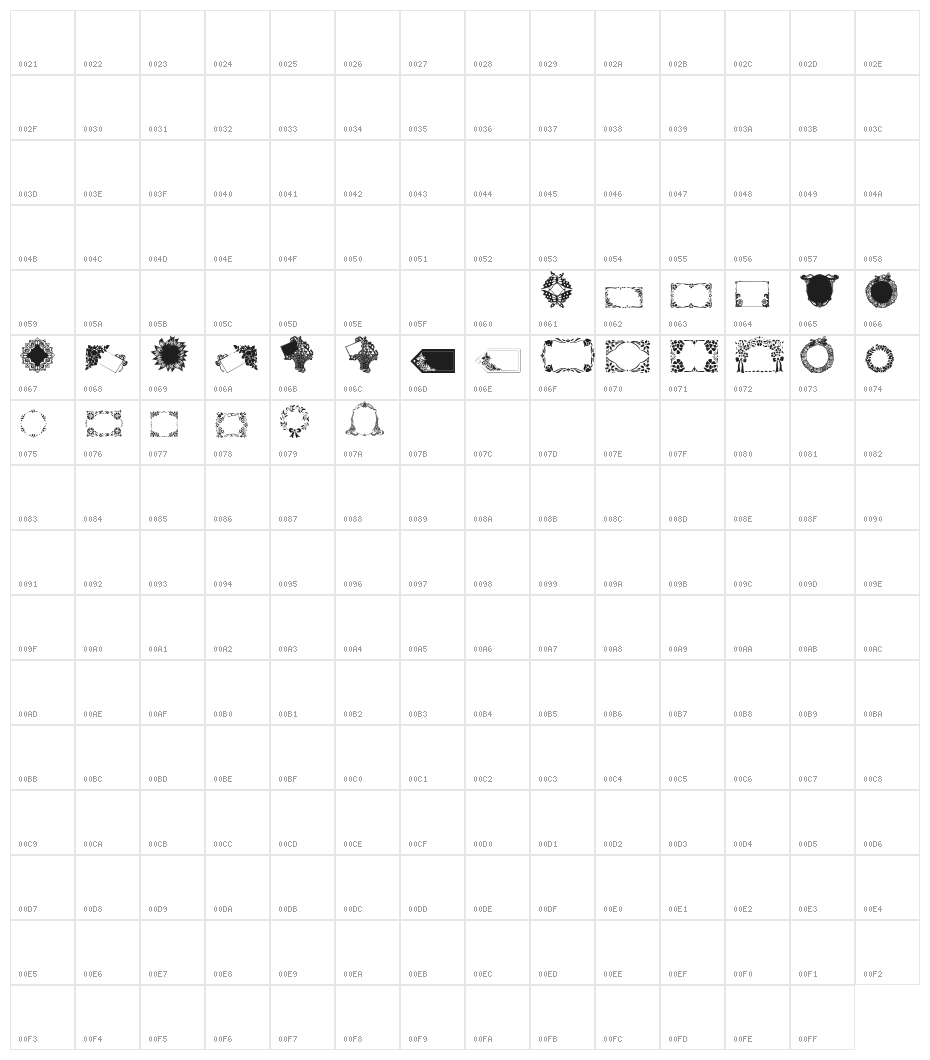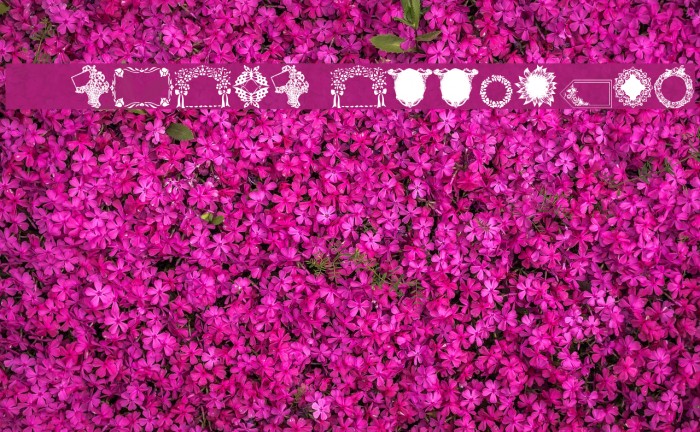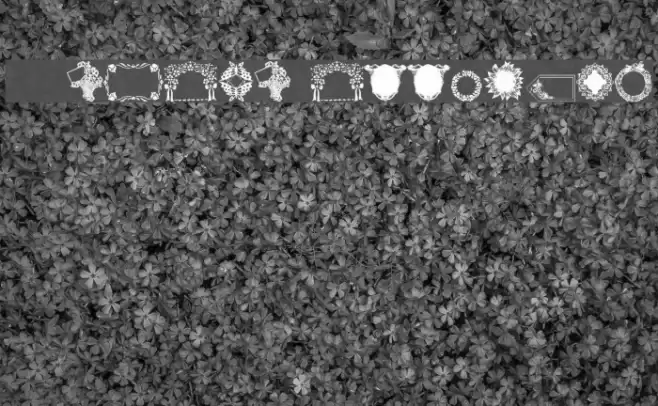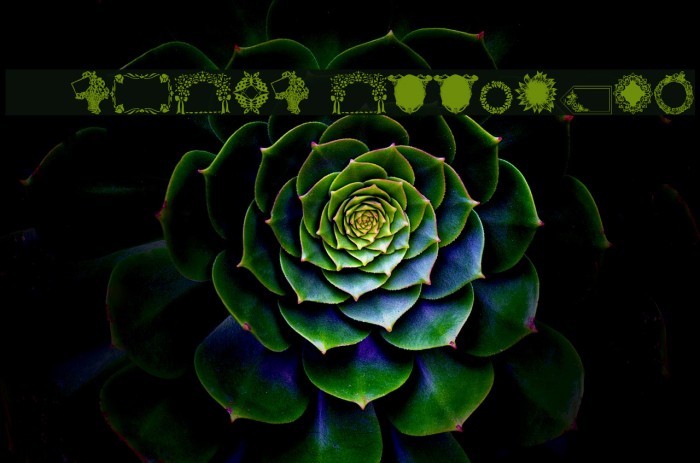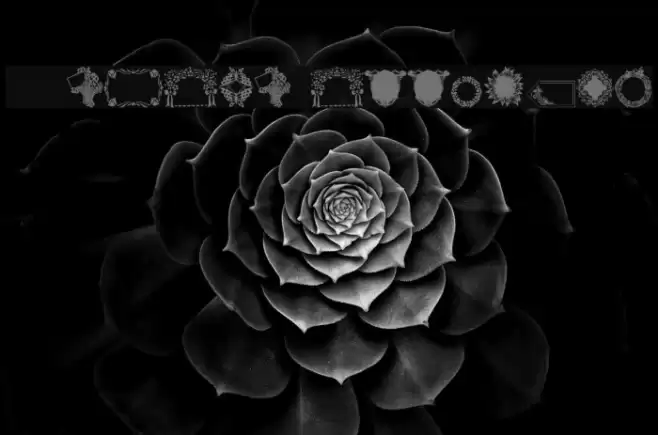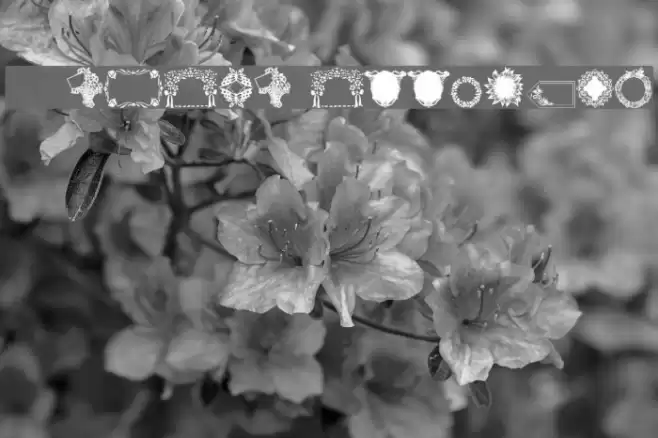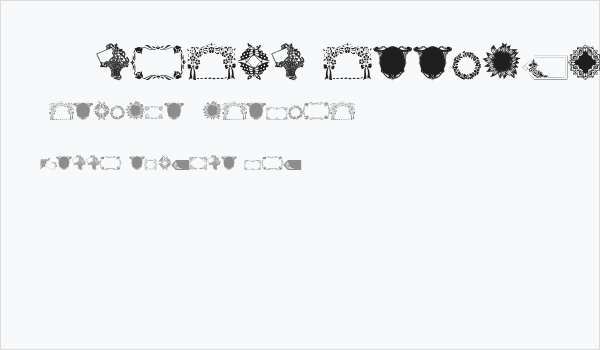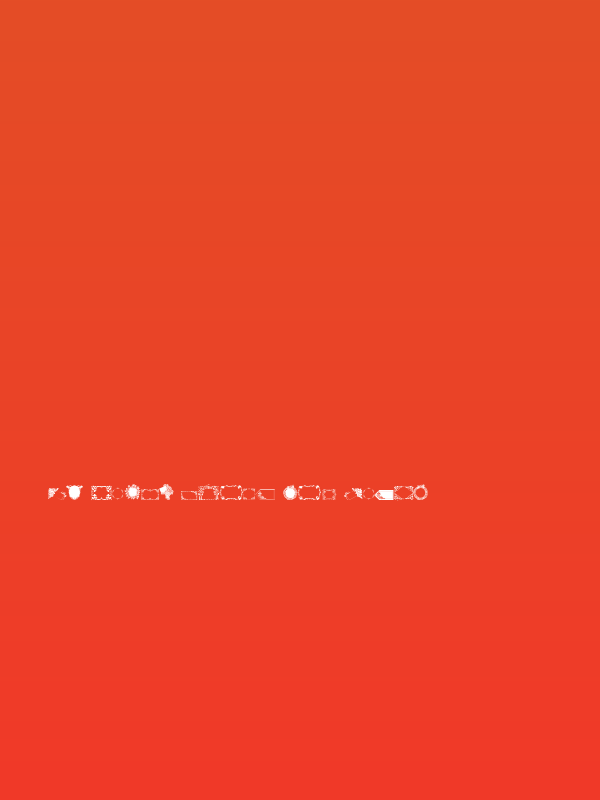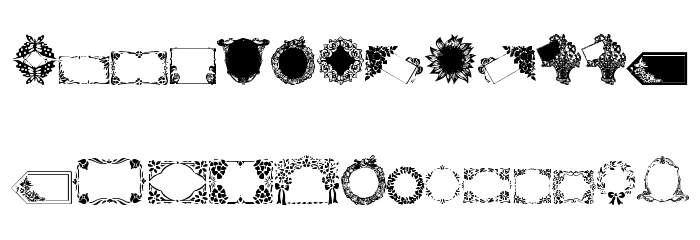
WWFloralGreetings Font
WWFloralGreetings Description
A decorative font composed of intricate floral and ornamental frame designs, each glyph representing a unique border or label with detailed botanical elements.
| Overall Style | Decorative, Vintage |
| Use Case | Logos, Decorative elements, Invitations, Greeting cards |
| Proposed Projects | Greeting cards, invitations, scrapbooking, decorative labels, event signage, digital art. |